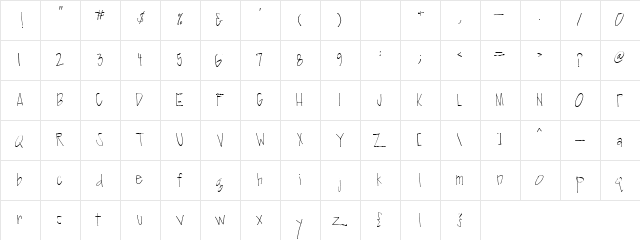
2Peas Animal Crackers Regular
Design Context for 2Peas Animal Crackers Typeface
2Peas Animal Crackers is a composed and adaptable typeface that performs quietly and consistently across a wide range of design contexts.